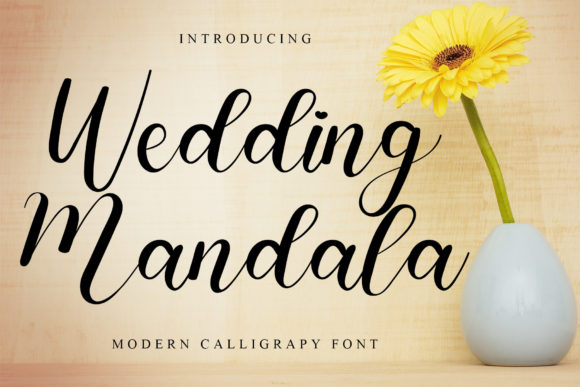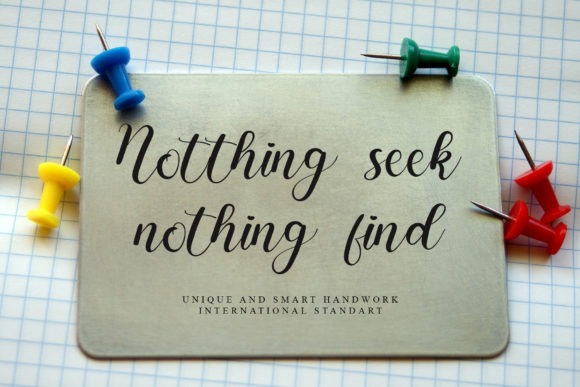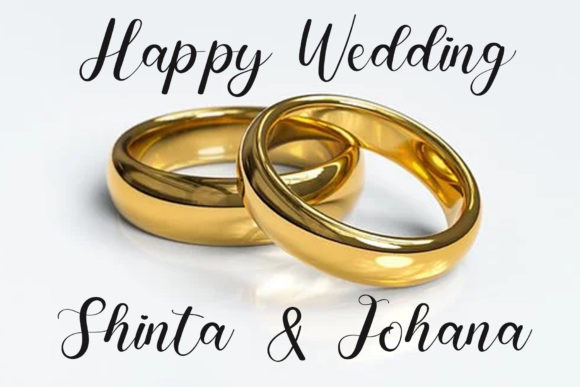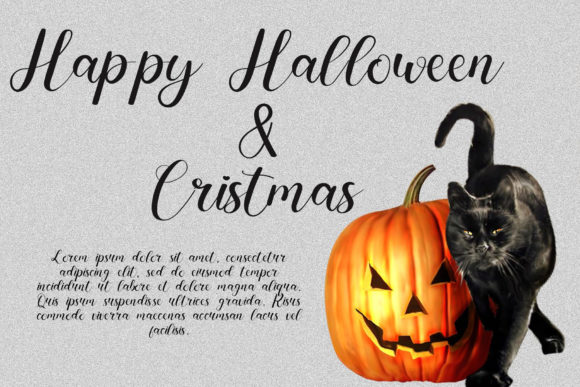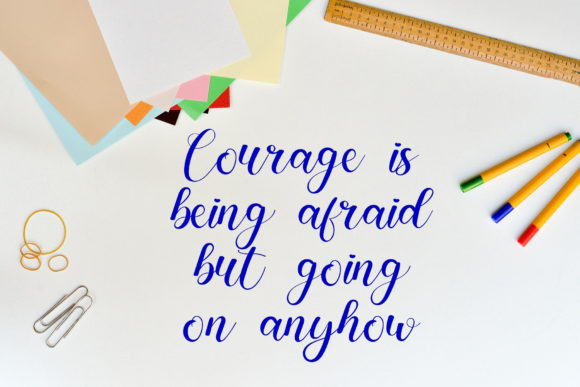
Wedding Mandala Font
About Wedding Mandala Font
Wedding Mandala is a lovely and timeless handwritten font. It is the best choice for creating eye catching logos, branding and quotes. Every letter has a unique and beautiful touch, which will make your design come alive!